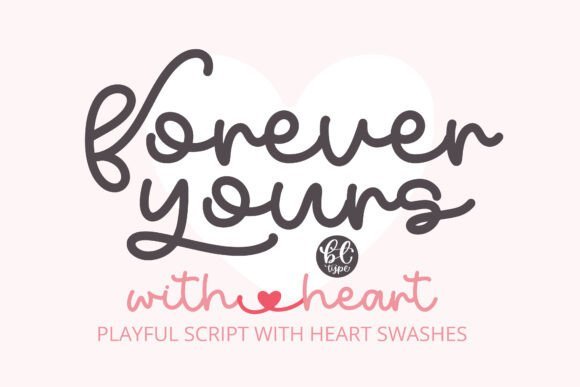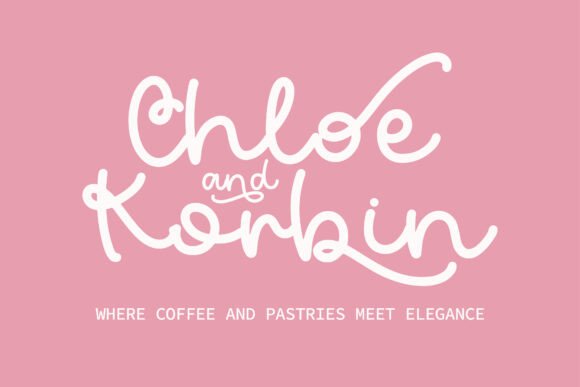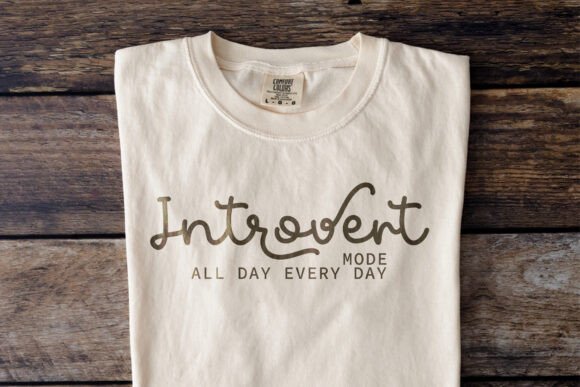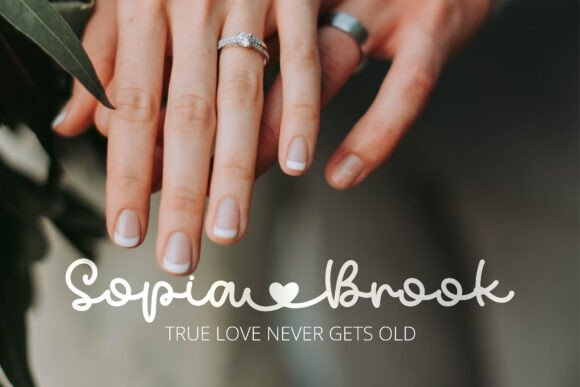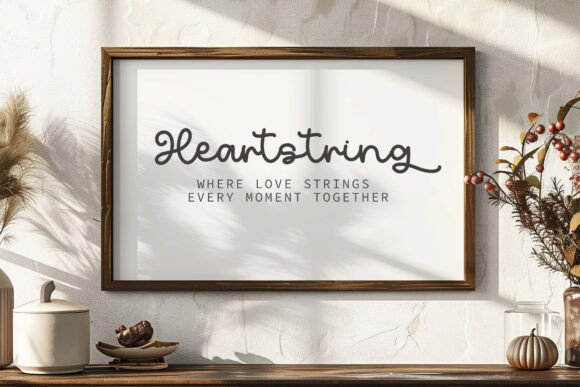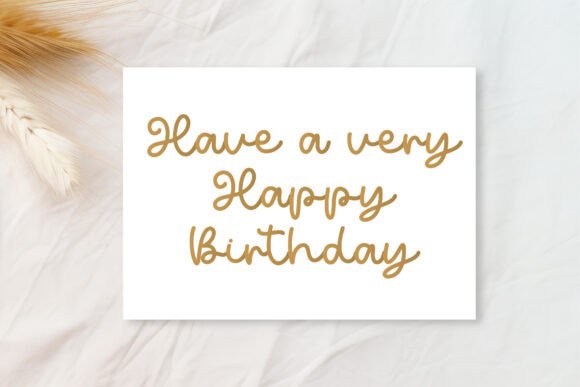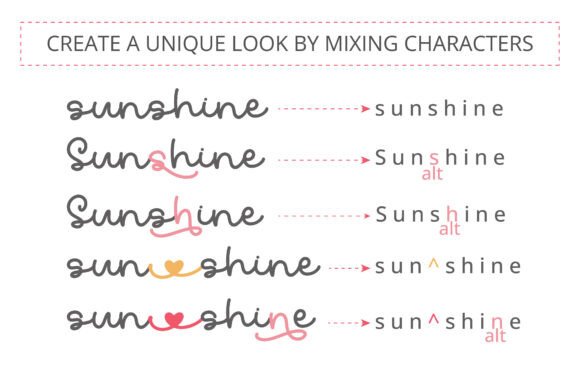
Adding a Personal Touch: The Power of Forever Yours Font
Have you ever been brainstorming a creative project and suddenly, an idea strikes you like a bolt of lightning? You can almost see it in your mind, and you can’t wait to bring it to life. For designers, this moment is pure magic. But what makes a design truly special is the details that set it apart from the rest. This is where Forever Yours Font comes in – a cool, friendly, and informal handwritten font that’s perfect for adding a personal touch to your chalkboard quotes or teaching materials.
With its authentic look and feel, Forever Yours Font is a valuable addition to any designer’s toolkit. Its versatility makes it suitable for a wide range of projects, from educational materials to decorative quotes. Whether you’re a seasoned designer or just starting out, Forever Yours Font is sure to become a favorite. Its unique charm will transport your designs to a more rustic, nostalgic era, making it a timeless choice for any creative project.
Forever Yours Font Key Features
- Font Family: Forever Yours Font is a unique, handwritten script font.
- Unique Characteristics: Features elegant, cursive lines, and subtle flourishes that add a touch of sophistication and romance.
Forever Yours Font Review
Overall, I think the Forever Yours Font is a beautiful and elegant script font. It’s perfect for creating a romantic or whimsical atmosphere in your designs ✨. Here are some things that work well:
- The fluid connections between letters make it feel like handwriting ✨.
- The subtle flair on the ends of the letters adds a touch of sophistication ✨.
- The font is highly legible, making it easy to read even in smaller sizes ✨.
- The font can feel a bit overused, especially in certain design niches ⚠️.
- The spacing between letters can be a bit tight, which may make it difficult to read in certain contexts ⚠️.
- The font doesn’t have a lot of customization options, which may limit its use in certain design scenarios ⚠️.
Overall, I think the Forever Yours Font is a solid choice for designers who want to add a touch of elegance and whimsy to their work. While it may have some limitations, its beauty and legibility make it a great option for a wide range of design projects.
The Forever Yours Font is perfect for:
- Valentine’s Day and anniversary cards
- Romantic quotes and sayings
- Wedding and engagement announcements
Remember to use the Forever Yours Font in a way that complements your design and message. Experiment with different font sizes, styles, and colors to get the most out of this beautiful font.
Alternatives to Forever Yours Font for Designers
Alice Script
Alice Script is a beautiful, elegant font perfect for wedding invitations, baby shower cards, and other special occasions. It features flowing connections between letters, giving it a whimsical feel. Compared to Forever Yours Font, Alice Script has a more delicate and refined look.
Carolyna Pro is a sophisticated script font ideal for luxury branding, packaging, and advertising. It features a mix of modern and vintage elements, making it perfect for creating a unique and eye-catching design. Unlike Forever Yours Font, Carolyna Pro has a more contemporary feel and is suitable for a wider range of applications.
Great Vibes is a stylish and modern script font that’s perfect for fashion, beauty, and lifestyle branding. It features a mix of curved and geometric shapes, giving it a dynamic and energetic feel. Compared to Forever Yours Font, Great Vibes has a more playful and youthful vibe.
Playfair Display is an elegant and luxurious serif font perfect for high-end branding, publishing, and advertising. It features intricate details and ornate flourishes, making it perfect for creating a sophisticated and refined design. Unlike Forever Yours Font, Playfair Display has a more classic and sophisticated feel.